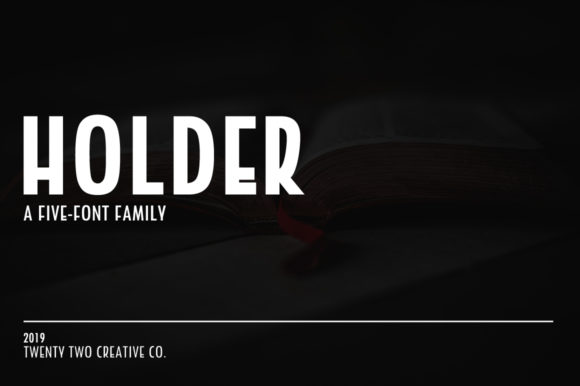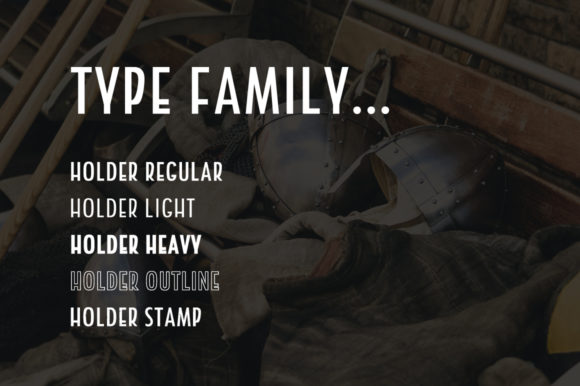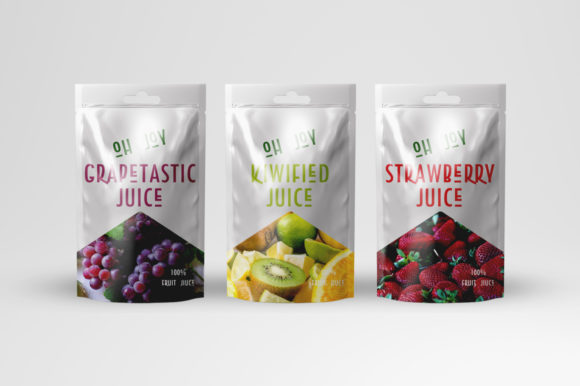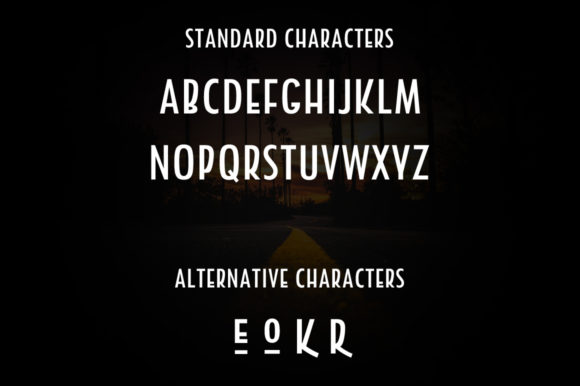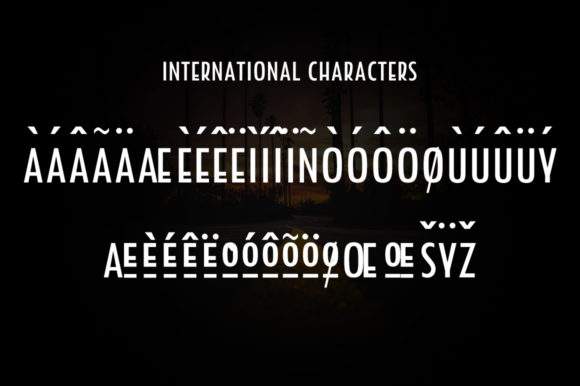
The Holder is a fresh sans-serif font family, inspired by covers from old books. It is perfect when used for displaying, website, branding, logos, magazines, posters, and films. There are five fonts included in both TTF and OTF formats: Regular, Light Heavy, Outline and Stamp.
NOTE: This is an all caps font. To access the alternative characters, you can use the lower case letters for E, K, O, and R.